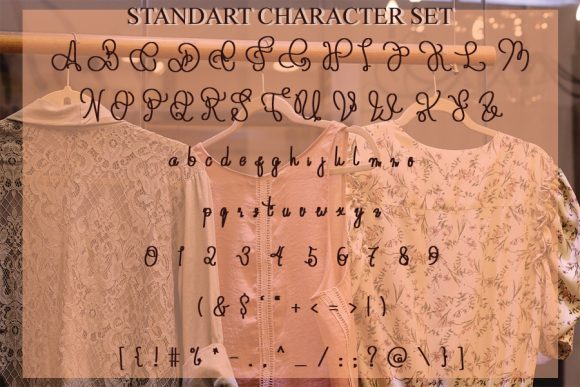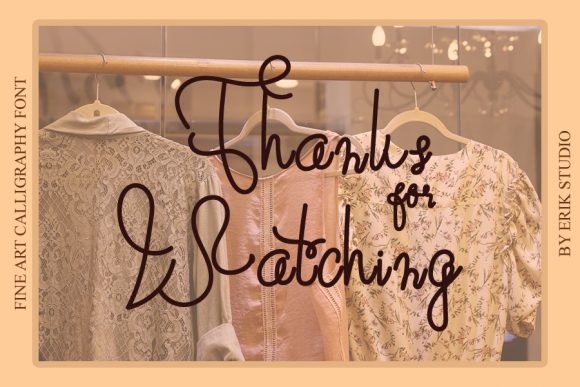
Introduction to Quantum and Time Font
Have you ever been stuck in the creative process, searching for the perfect font to bring your vision to life? I know I have. As designers, we’ve all been there – staring at a blank canvas, wondering what’s missing. It’s in these moments that we need a reliable design resource that can elevate our work and make it truly special.
That’s where the Quantum and Time Font comes in – a high-quality, delicate handwritten font that’s perfect for fashion branding or editorial designs. With its beautiful curves and transparent background, this font adds a touch of sophistication to any creative project. And the best part? It’s available for free download, making it an invaluable addition to any designer’s toolkit.
Whether you’re working on a high-end fashion campaign or a personal blog, the Quantum and Time Font is sure to make a statement. So why wait? Add it to your next project and experience the difference for yourself.
Key Features of Quantum and Time Font
- High-quality design: This font is perfect for creative projects that require a unique and modern look.
- Transparent background: The Quantum and Time Font allows for easy customization and placement on any design resource.
- Unique characteristics: The font features a blend of futuristic and elegant elements, making it perfect for futuristic and sci-fi themed projects.
- Perfect for creative projects: The Quantum and Time Font is ideal for use in logos, titles, headings, and other design elements where a unique and high-quality font is required.
Honest Review: Quantum and Time Font
I recently had the chance to work with the Quantum and Time Font, and I must say it’s been a game-changer for my creative project. This font is perfect for those who want to add a touch of futurism and innovation to their designs.
- High-quality design: The Quantum and Time Font is meticulously crafted with a focus on detail and precision.
- Transparent background: This feature allows for seamless integration with various backgrounds and designs.
- Creative freedom: The Quantum and Time Font offers endless possibilities for creative expression and experimentation.
- Limited character set: The font has a relatively small character set, which may not be ideal for extensive typing.
- Not suitable for small text: The font’s design may not be readable at very small font sizes.
Overall, the Quantum and Time Font is a solid addition to any designer’s toolkit. Its unique design and high-quality craftsmanship make it an excellent choice for creative projects that require a touch of futurism and innovation.
To get the most out of the Quantum and Time Font, use it sparingly to add emphasis to key points in your design. You can also experiment with different font sizes and colors to create a unique look.
The Quantum and Time Font is ideal for use in creative projects, such as logos, business cards, and brochures. It’s also great for use in presentations, reports, and documents where a high quality font is required.
Compared to Quantum and Time Font, Cosmic Sans has a more pronounced, extraterrestrial feel, making it suitable for projects that need a strong, cosmic presence.